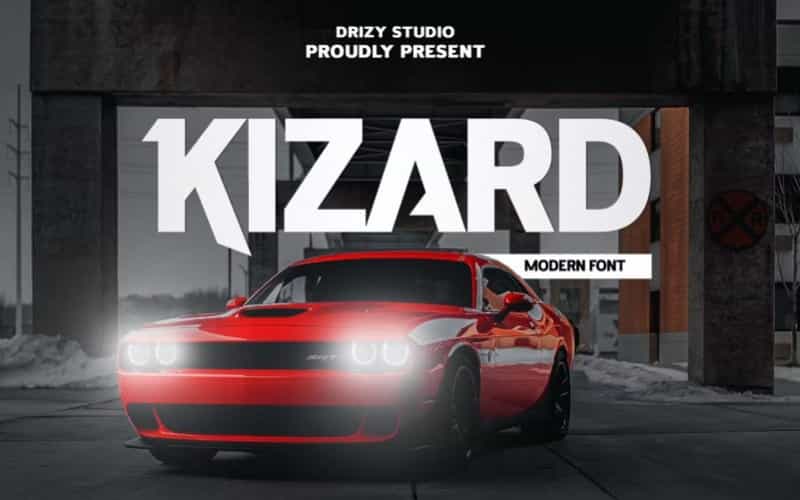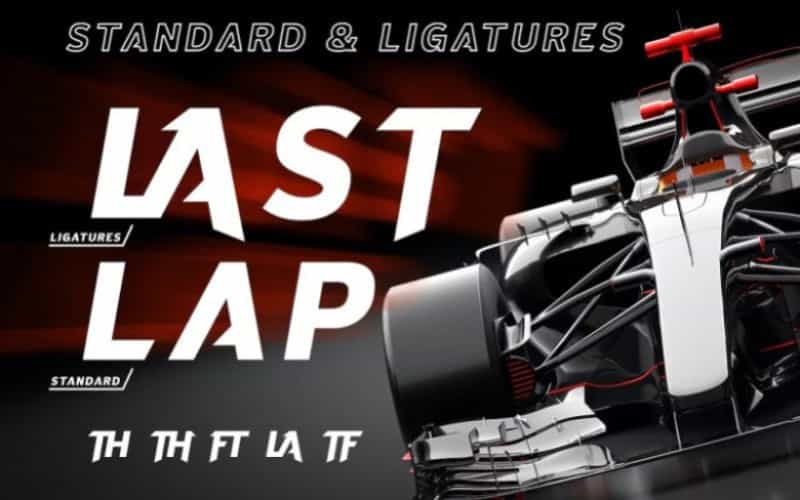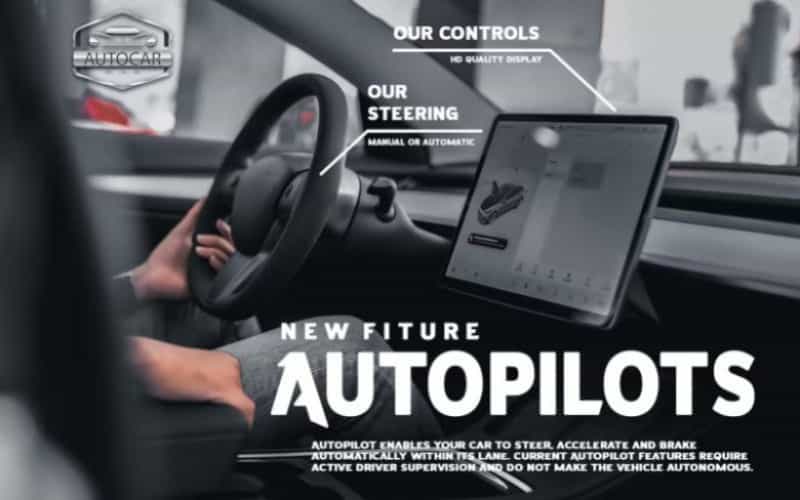
Kizard is a non-serif Modern show typeface. Providing you with basic modern designs for a successful project, Kizard can be used for branding, logo design, clothing brand packaging and magazine headers – or as trendy text overlay on photos of any kind!